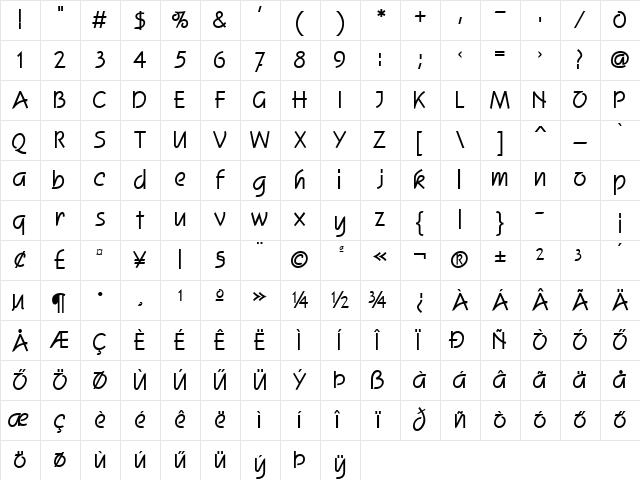
Squire Hu Bold Free Font
Squire Hu Bold
Squire Hu Family
Complete Squire Hu Bold glyph index. Displaying only characters natively supported by Squire Hu Bold font.
Design Context for Squire Hu
Squire Hu is a composed and adaptable typeface that performs quietly and consistently across a wide range of design contexts. Its bold stroke weight gives it real presence on the page.